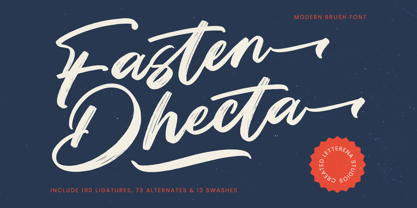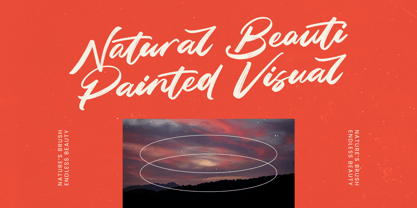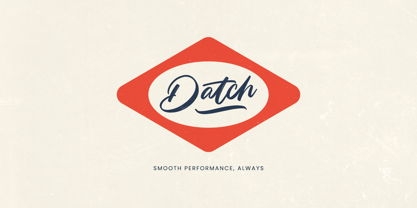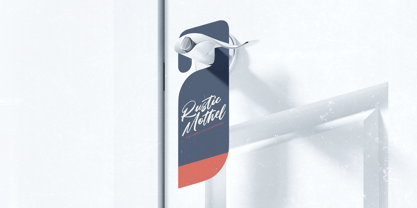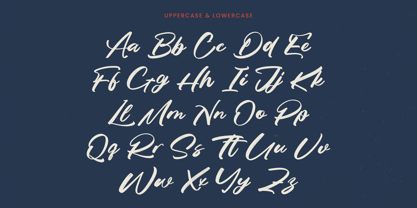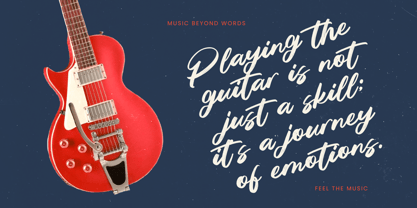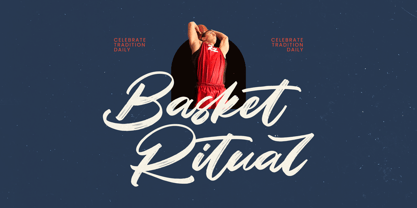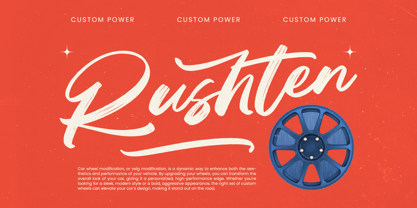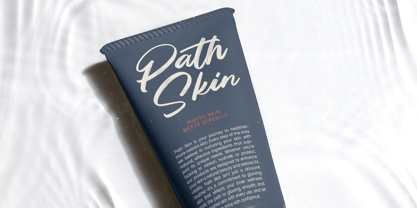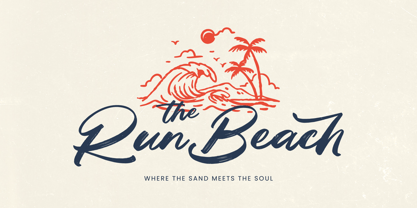
Fasten Dhecta
The Fasten Dhecta Font Family was designed by Heru Utama Putra and published by Letterena Studios. Fasten Dhecta contains 2 styles and family package options. More about this family
Fasten Dhecta - Modern Brush Font , from Letterena, is a Luxury Script font, suitable for any projects such as: logos, branding projects, homeware designs, product packaging, mugs, quotes, posters, shopping bags, t-shirts, book covers, name card, invitation cards, greeting cards, label, photography, watermark, special events, and all your other luxury and beautiful projects that need a Luxury Script taste.